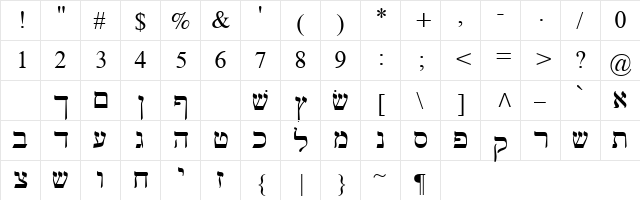
OLBHEB Regular
Design Context for OLBHEB Typeface
OLBHEB offers clean, dependable letterforms without strong stylistic allegiance, making it a practical choice for designers who need flexibility.